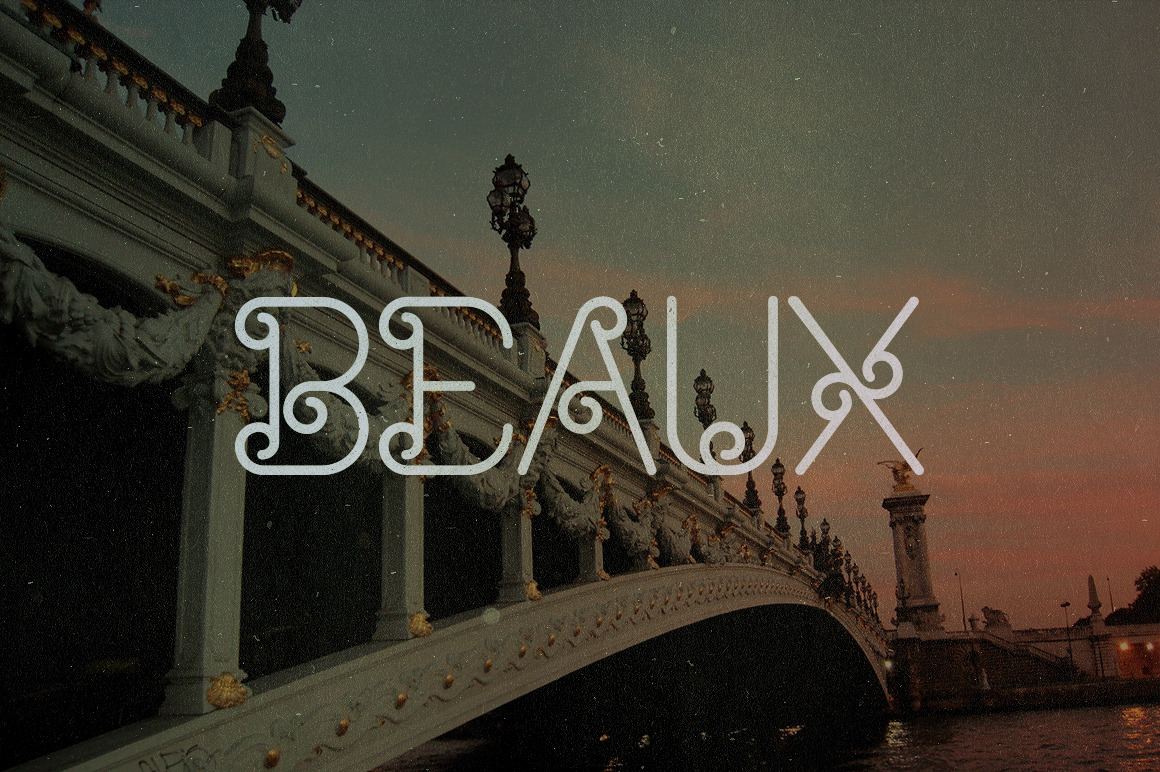
Beaux Typeface + Extras
Beaux is a beautifully handsome display typeface with just the right amount of elegance! It comes in uppercase and lowercase, with plenty of stylistic alternates. It is perfect for monograms and logos, or anything else you want to add a little glamour to!
Get really creative with the included decoration vectors and really make this typeface pop! You can make it super elegant and fancy or keep it simple and beautiful. There is a guide included that explains how to use the decorations and apply them to the characters. Typeface comes in both .otf and .ttf.